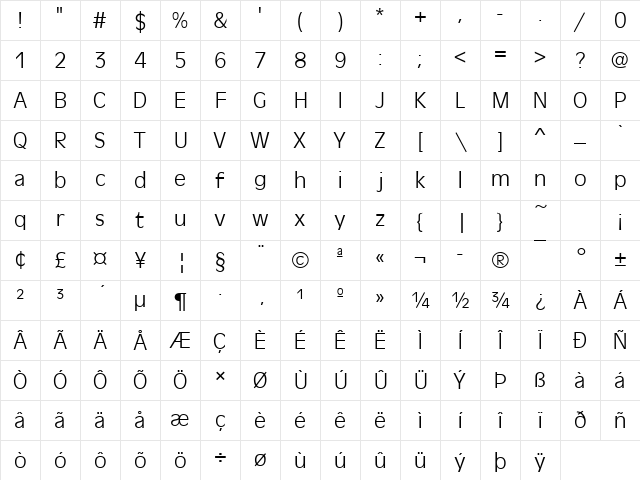
Complete AntiqueOliTLig Regular glyph index. Displaying only characters natively supported by AntiqueOliTLig Regular font.
AntiqueOliTLig wears its vintage influences proudly, with letterforms that recall mid-century signage, classic packaging, and nostalgia-driven design.